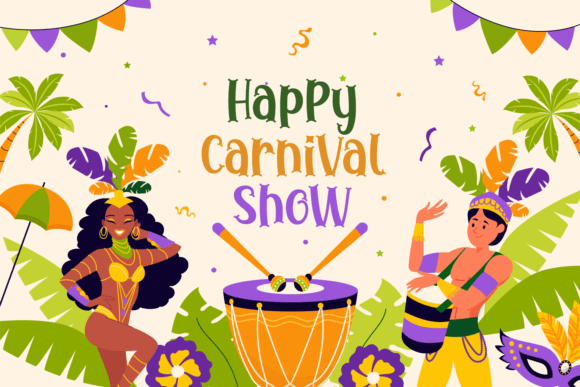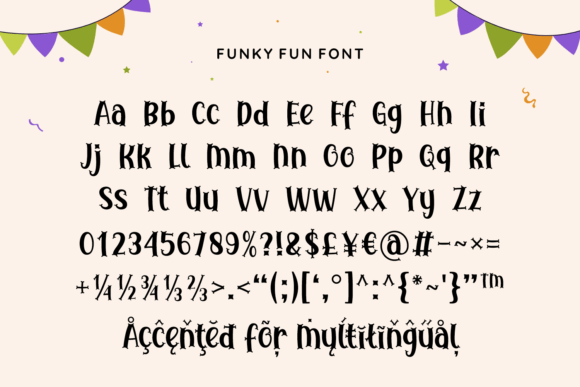
Introduction to Funky Fun Font Font
Fonts play a crucial role in design, and the Funky Fun Font font is a typeface that brings both character and versatility to any project. Whether you’re working on a branding project, a website, or a print design, the Funky Fun Font font offers a unique style that can elevate your work.
Funky Fun is a playful serif font with a lovely vibe.
Whether youβre using it for crafts, digital design, presentations, or making greeting cards, this font has the potential to become your favorite go-to font, no matter the occasion .
Key Features of Funky Fun Font Font
Why Choose Funky Fun Font Font?
The Funky Fun Font font is more than just a typeface β it’s a design tool that helps you communicate your message with style and clarity. Its unique character set and versatile design make it suitable for a wide range of applications, from elegant invitations to bold headlines.
With its carefully crafted letterforms and balanced proportions, the Funky Fun Font font ensures readability and visual appeal across all mediums.
What makes Funky Fun Font font special?
The Funky Fun Font font stands out with its unique design, exceptional readability, and versatility across various design applications.